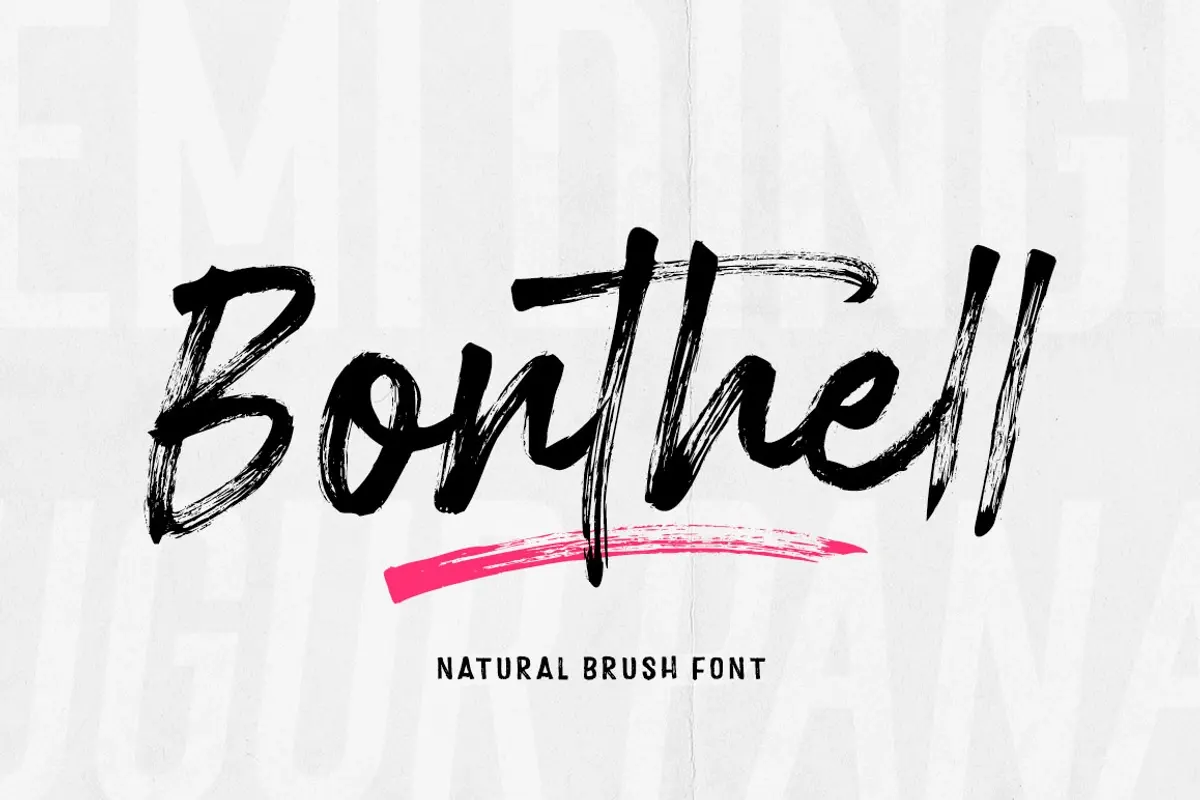
Bonthell Font Free Download is a stylish and modern script font that blends elegance with personality. Featuring flowing strokes and a hand-lettered look, Bonthell is perfect for logos, wedding invitations, boutique branding, social media posts, and creative packaging.
Its smooth curves and graceful swashes give your designs a romantic, custom-made feel—ideal for projects that call for charm and sophistication. Whether you're creating a feminine logo or an eye-catching headline, Bonthell delivers both beauty and clarity.
Easy to use and highly readable, this font brings warmth and emotion to both print and digital layouts. With multilingual support and alternates included, it’s a versatile addition to any designer’s toolkit.